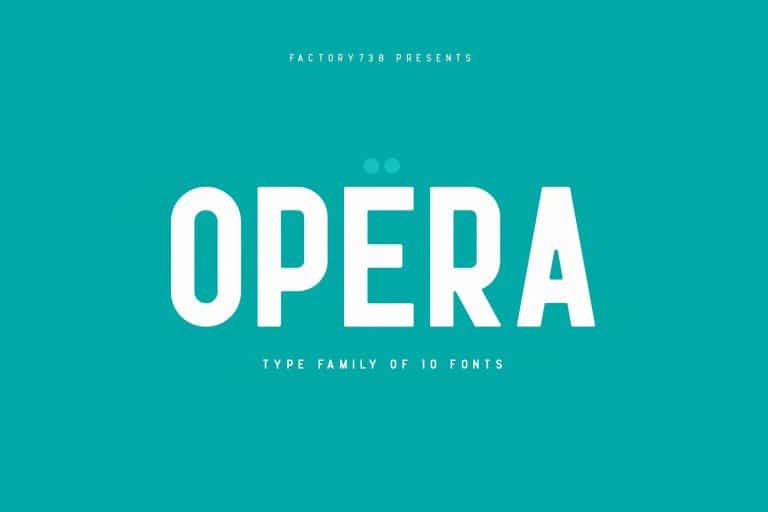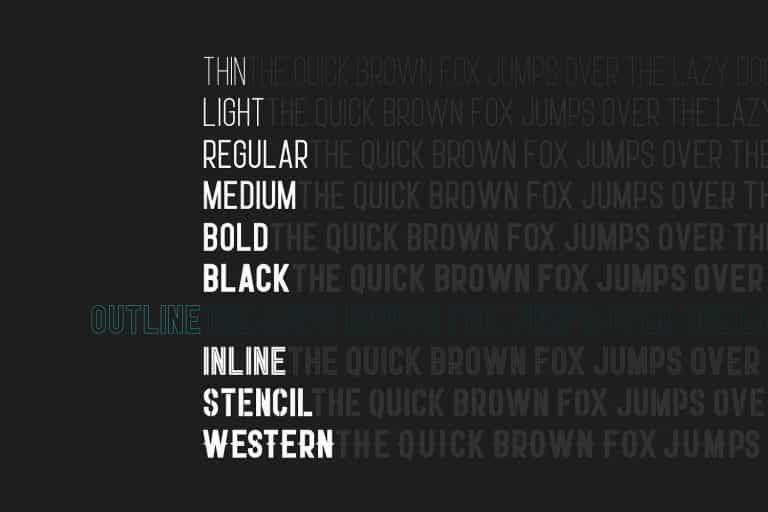
Introducing Opera Typeface. Opera is an impressive sans-serif typeface. The mixture of simple and geometric elements creates a powerful design. Opera family is made up of 10 styles. It can be applied for almost any kind of design projects such as print items and web design. Let your imagination go and your work will come alive and vibrant as never before with one of the Opera fonts.